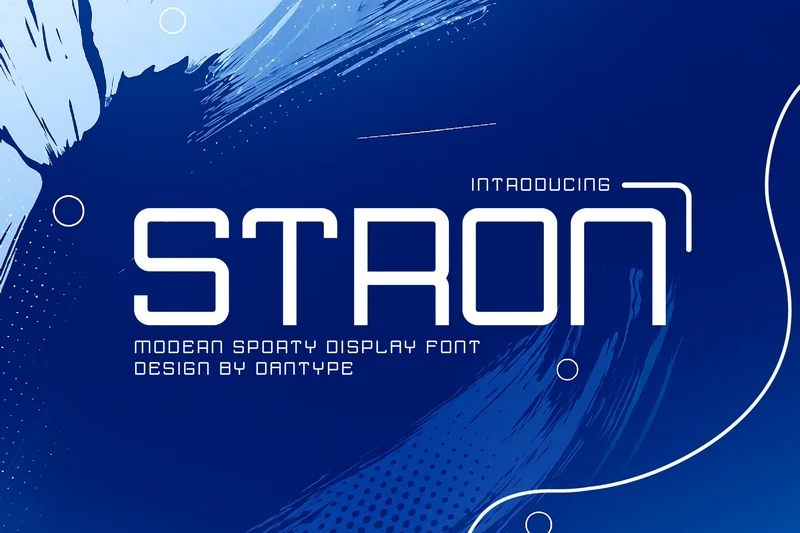
Sports Font – Stron Modern Display Font
Stron is a modern sporty display font designed to capture the energy, strength, and futuristic spirit of athletic branding. With its bold geometric shapes, sharp corners, and clean lines, Stron is perfect for sports logos, team jerseys, esports graphics, posters, and dynamic product packaging. Its unique letterforms convey speed and confidence, making it ideal for projects that demand a strong and competitive visual identity. STRON balances modern minimalism with sporty aesthetics, ensuring your designs stand out with power and precision.